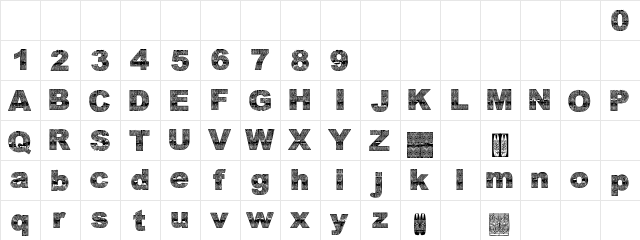
AsmatFont2007 Regular
Design Context for AsmatFont2007 Typeface
AsmatFont2007 is a composed and adaptable typeface that performs quietly and consistently across a wide range of design contexts.